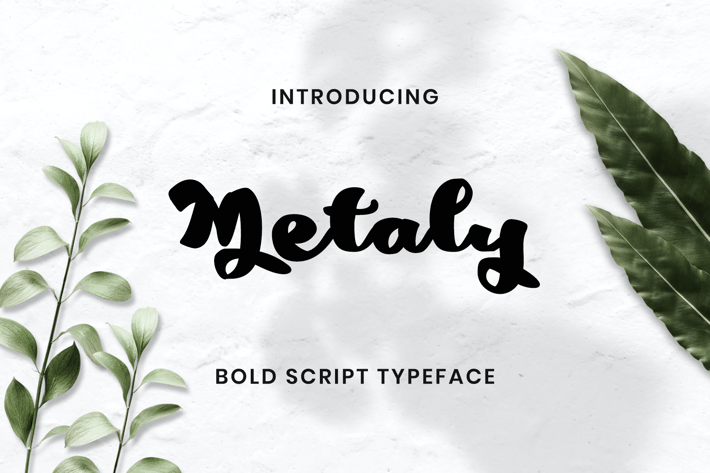
Metaly Modern Script Font
Metaly Modern Script Scirpt Font, is our new font and suitable for mockup or any work.
Great for
Sticker, Invitation Card, Brochure, etc.